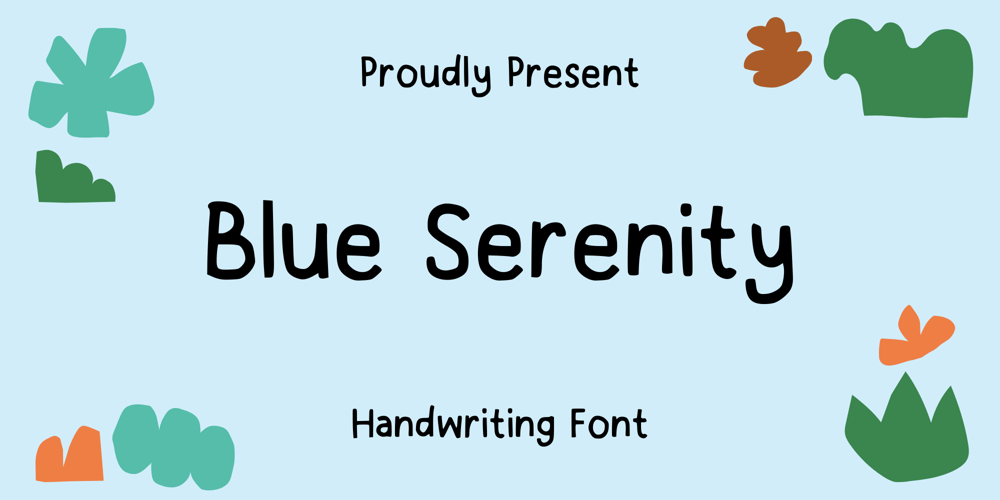
Blue Serenity Font Family was designed by published by Sidkia Fonts. Blue Serenity contains 1 styles and family package options. Blue Serenity font is a regular cute and simple handwriting font. This font is a little neat and very suitable for use in your designs, your notes, quotes, or even for your invitations and flyers.